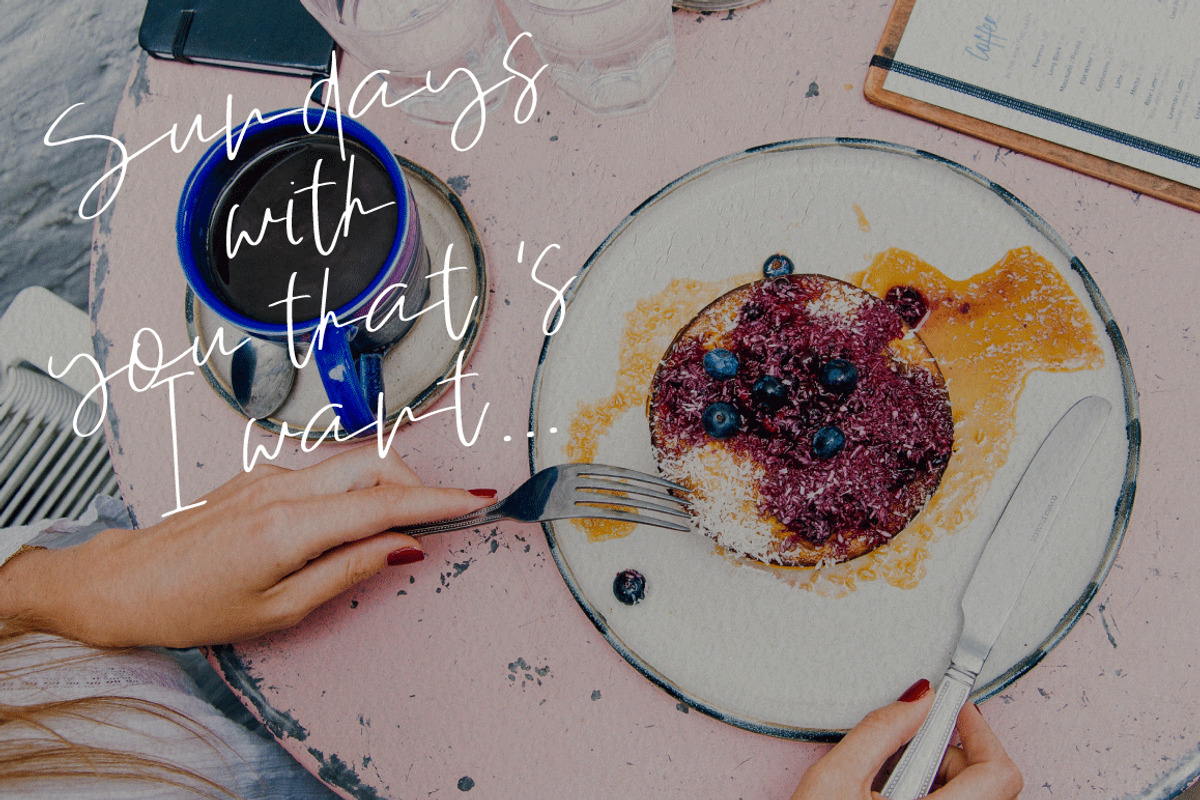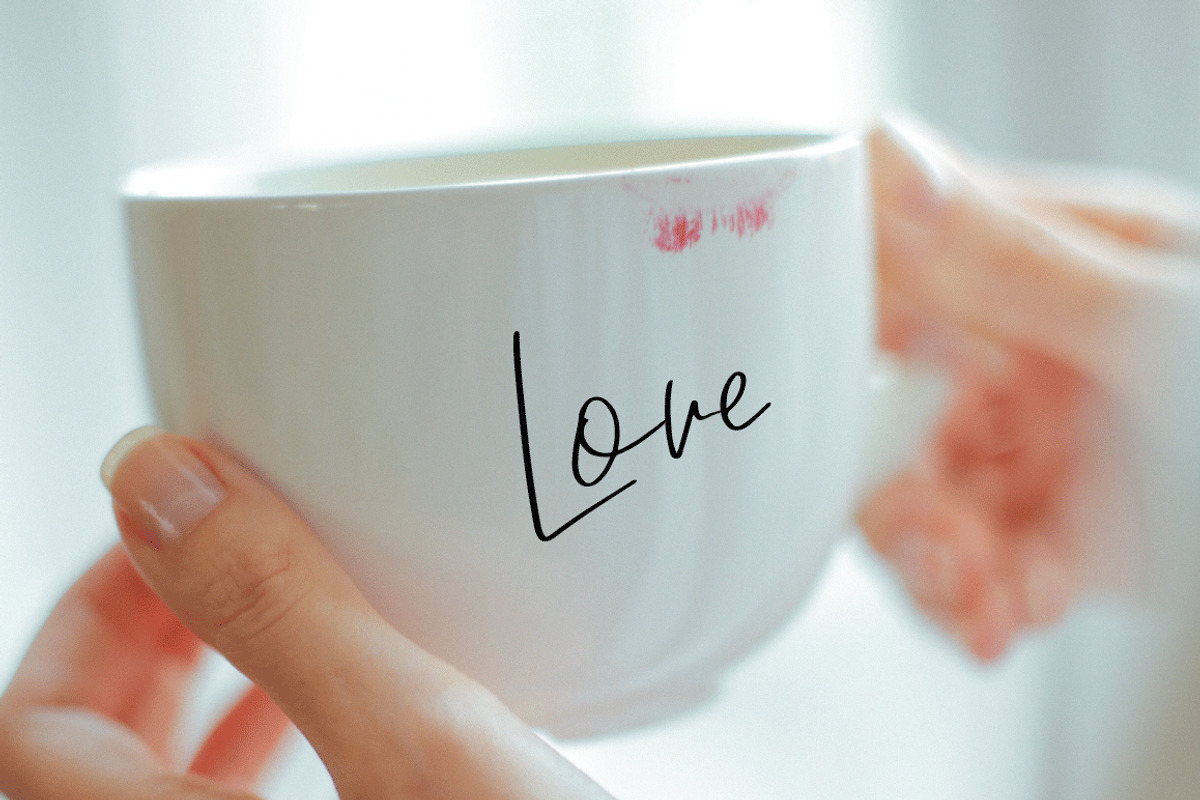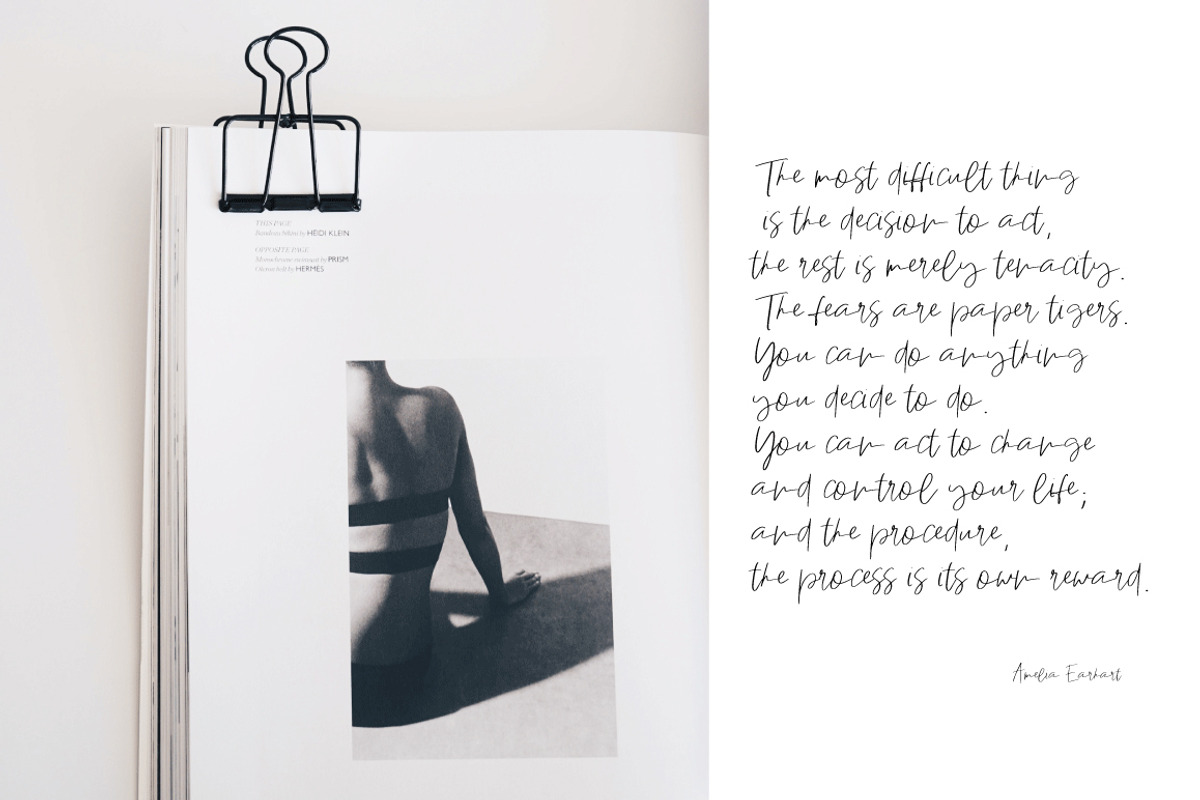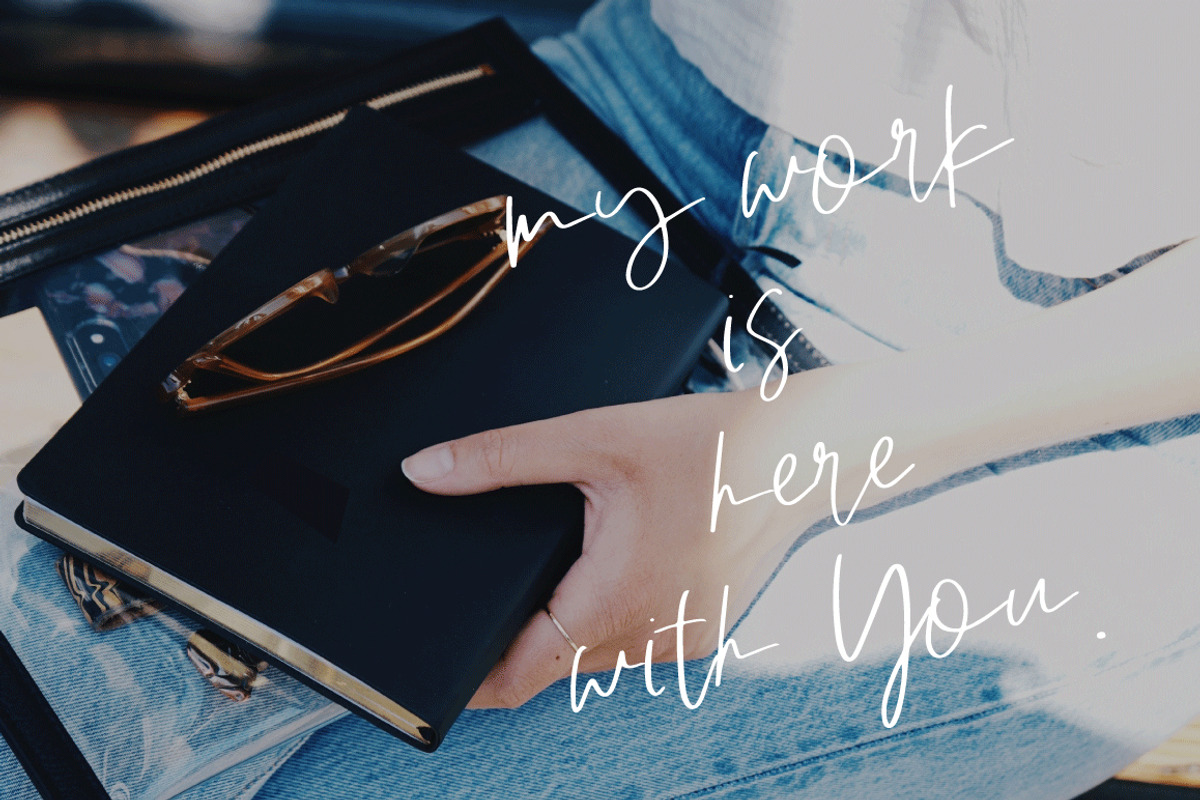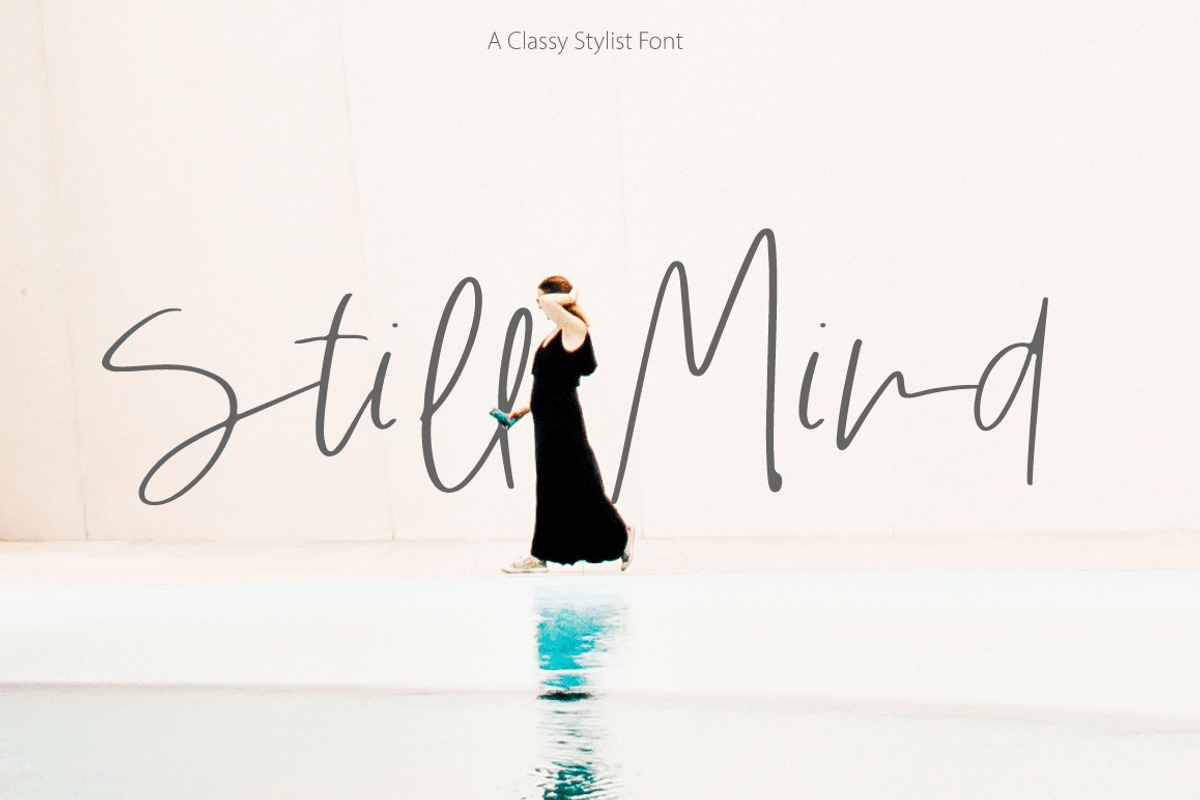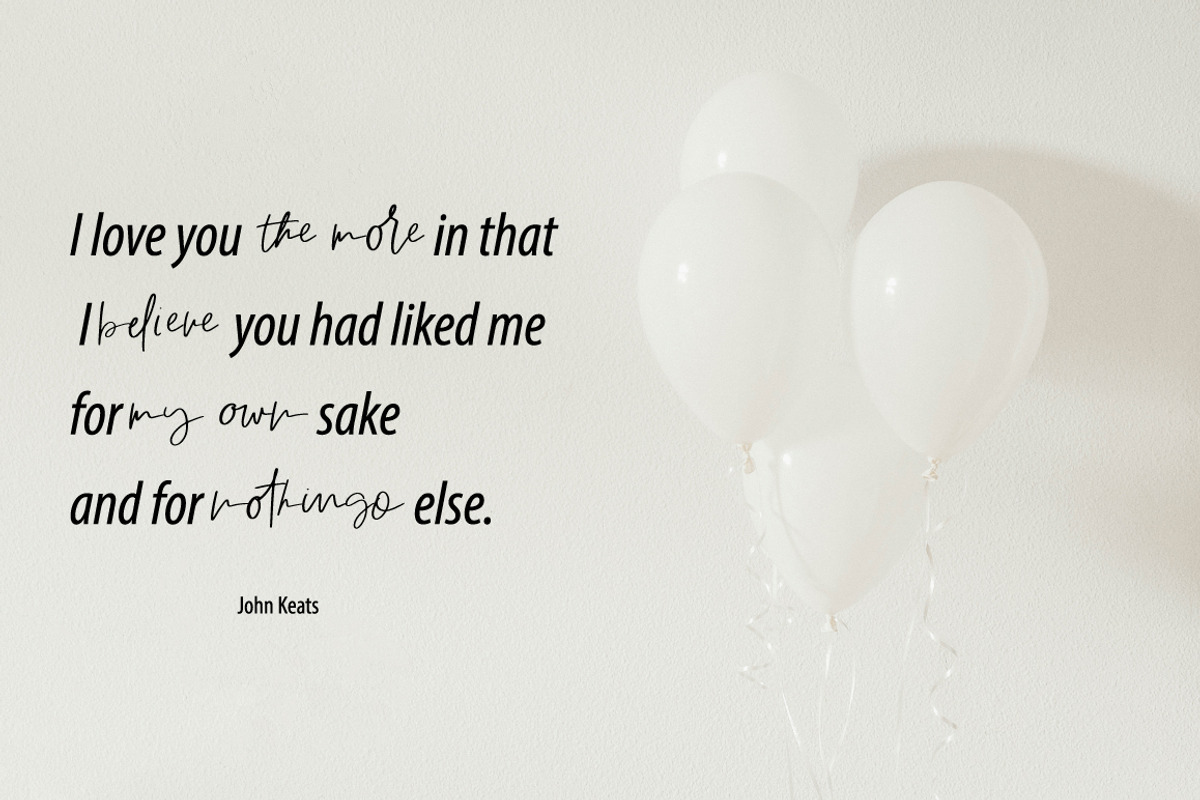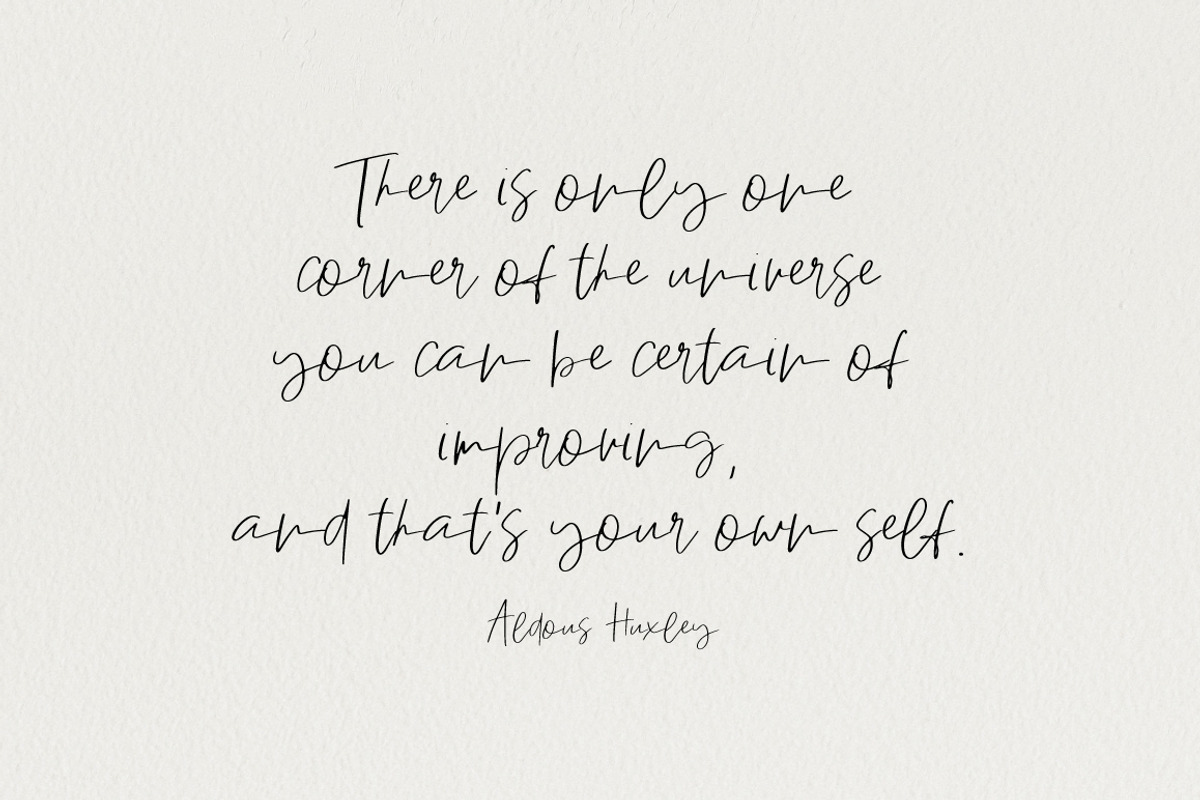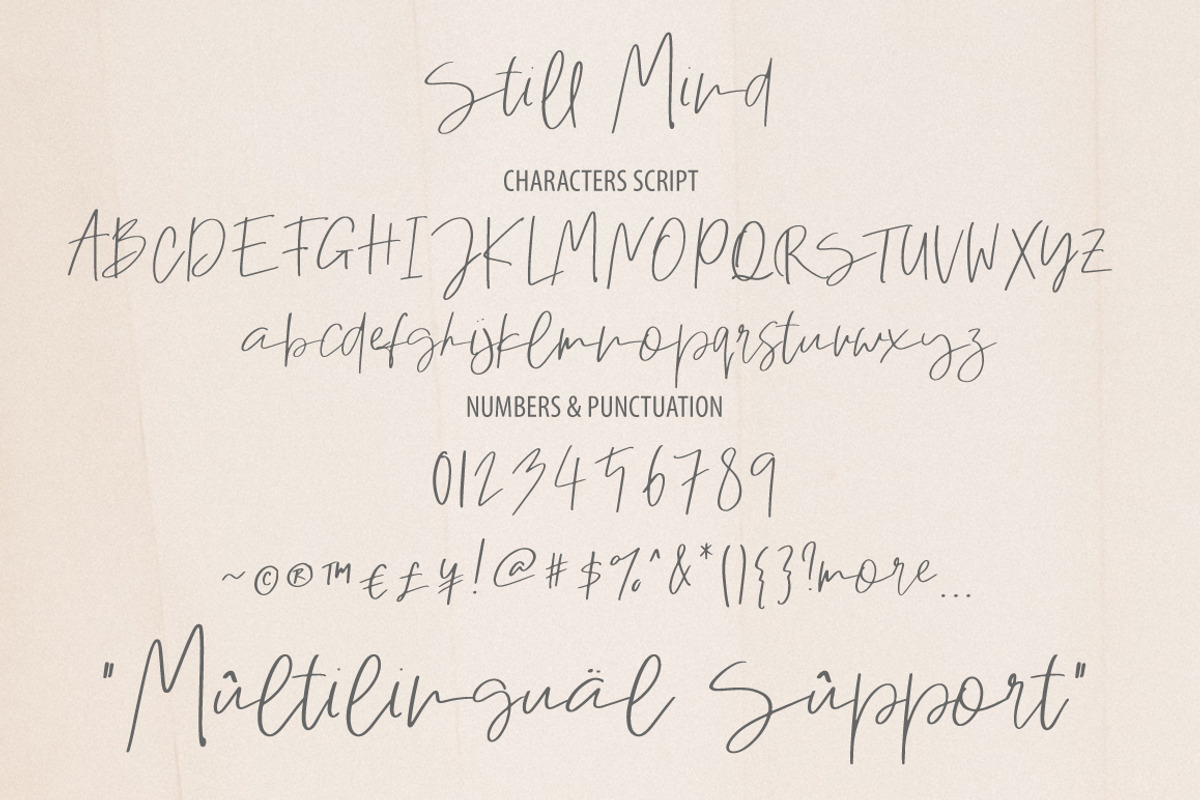
Still Mind | Classy Font
Introducing Still Mind - A Classic Stylist font perfect for high impact headlines
Every single letter has been creative carefully and Perfectly Playful new font pair. This font is a perfect script designed for making your set of invitations, Brand, blog posts, and more completely beautiful
Multilingual support is included in Western European Languages